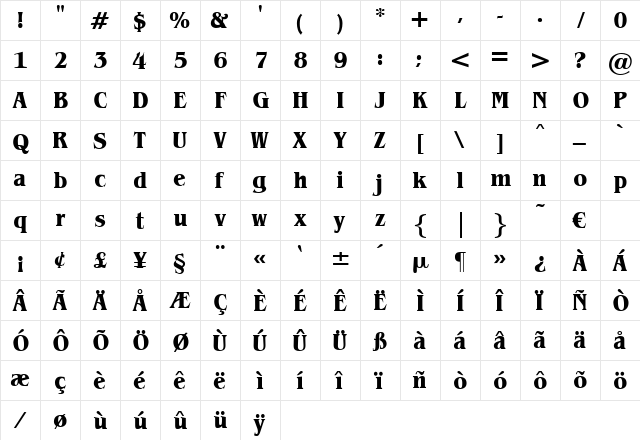
JonathanBoldCondensed Regular Font Preview
Design Context for JonathanBoldCondensed Typeface
JonathanBoldCondensed offers clean, dependable letterforms without strong stylistic allegiance, making it a practical choice for designers who need flexibility. Its bold stroke weight gives it real presence on the page. The condensed width makes it efficient for tight spaces without sacrificing legibility.